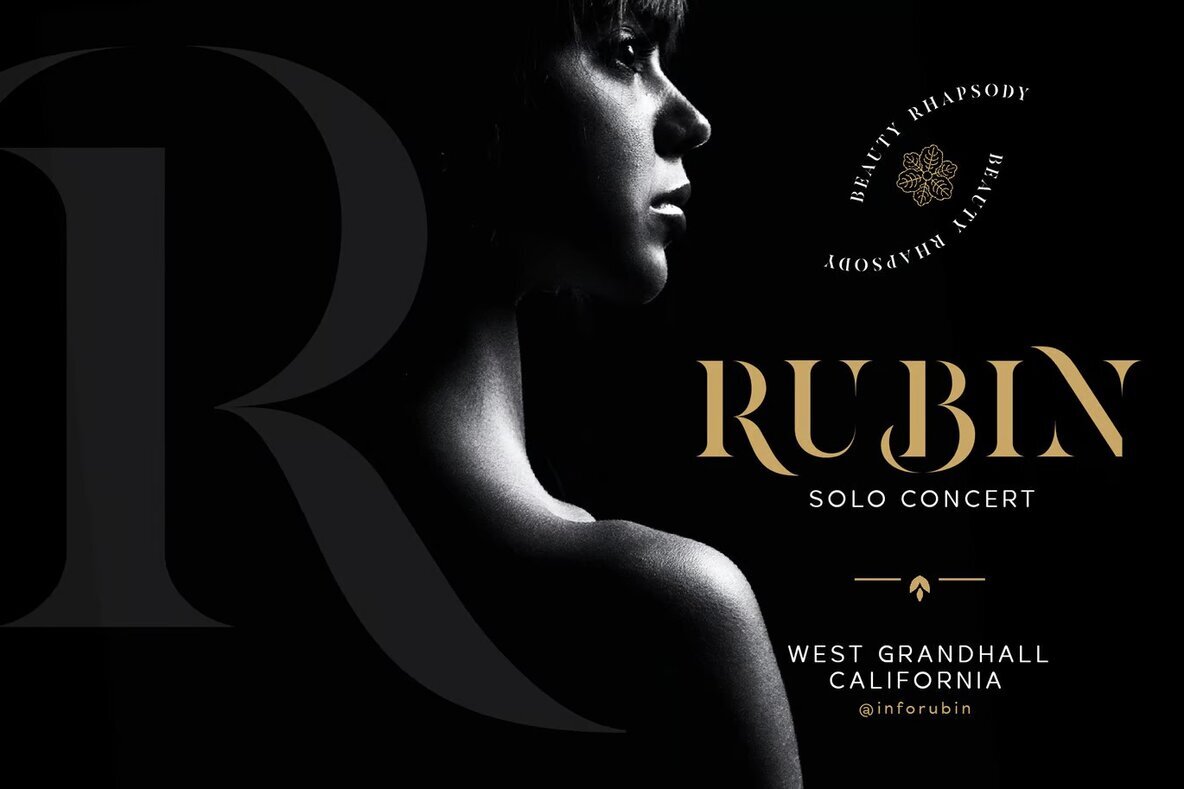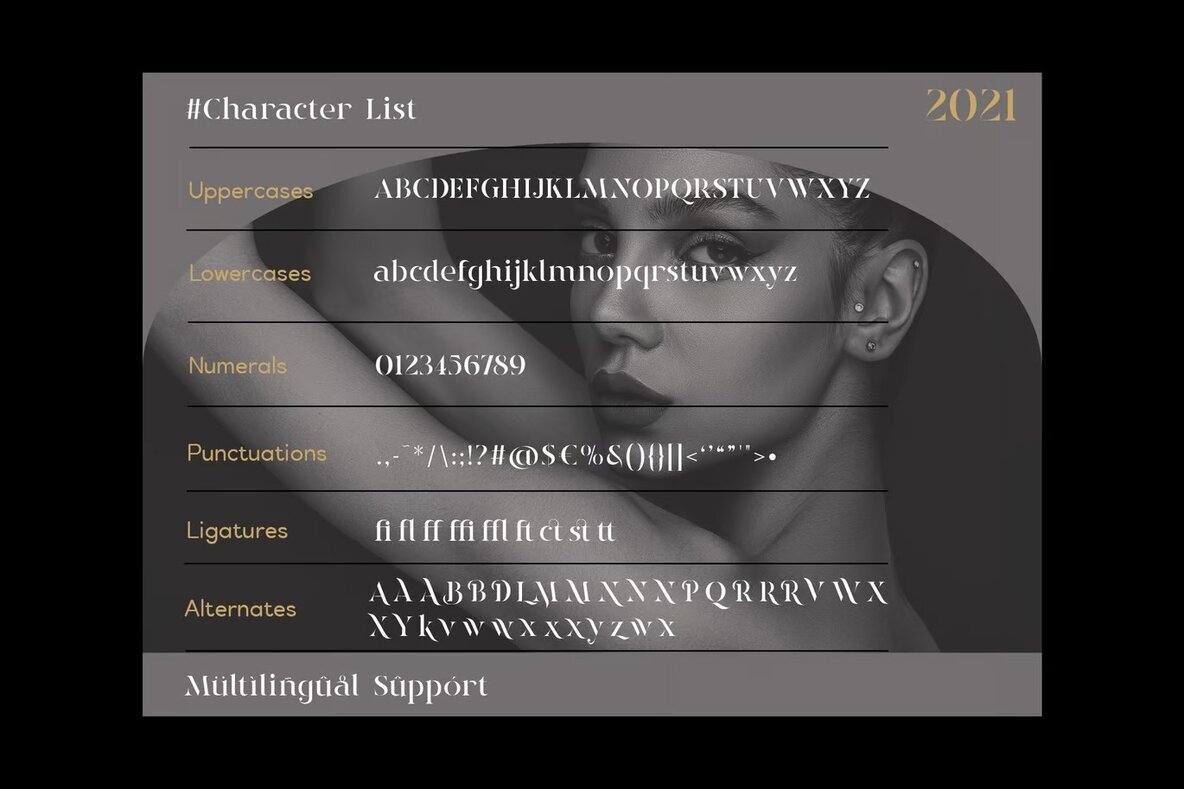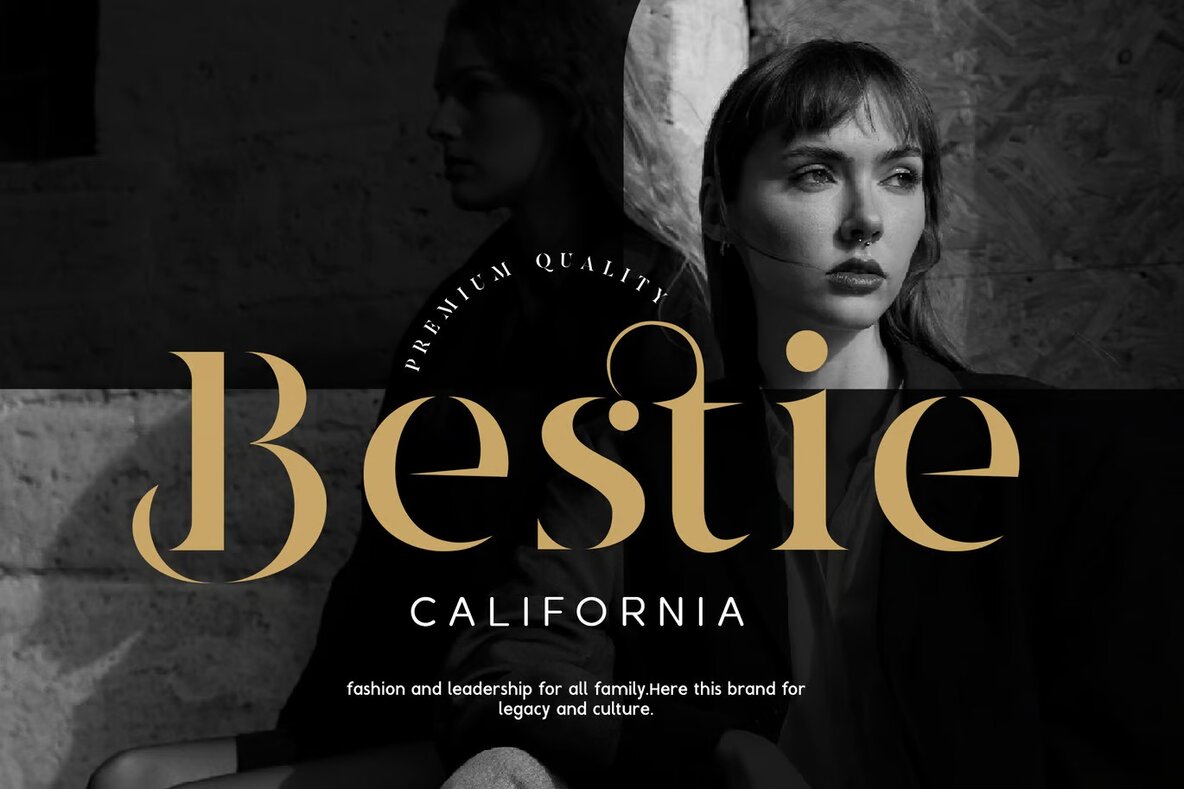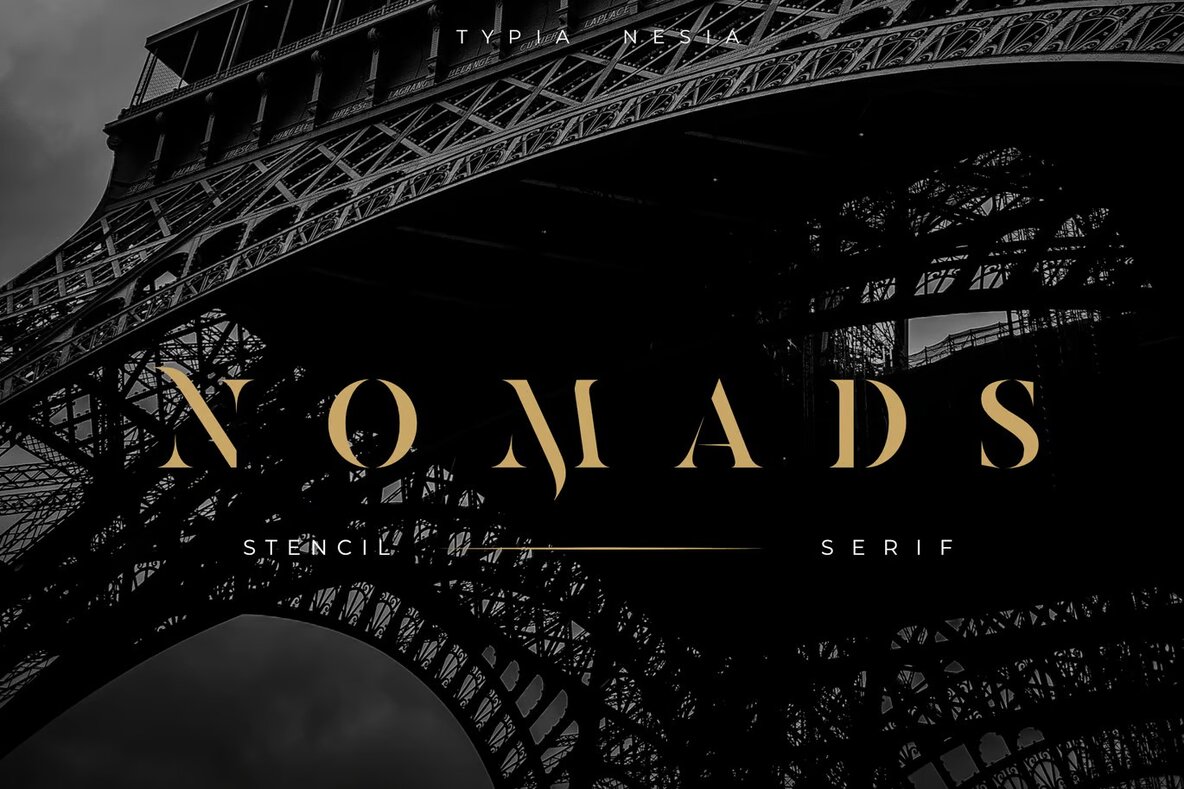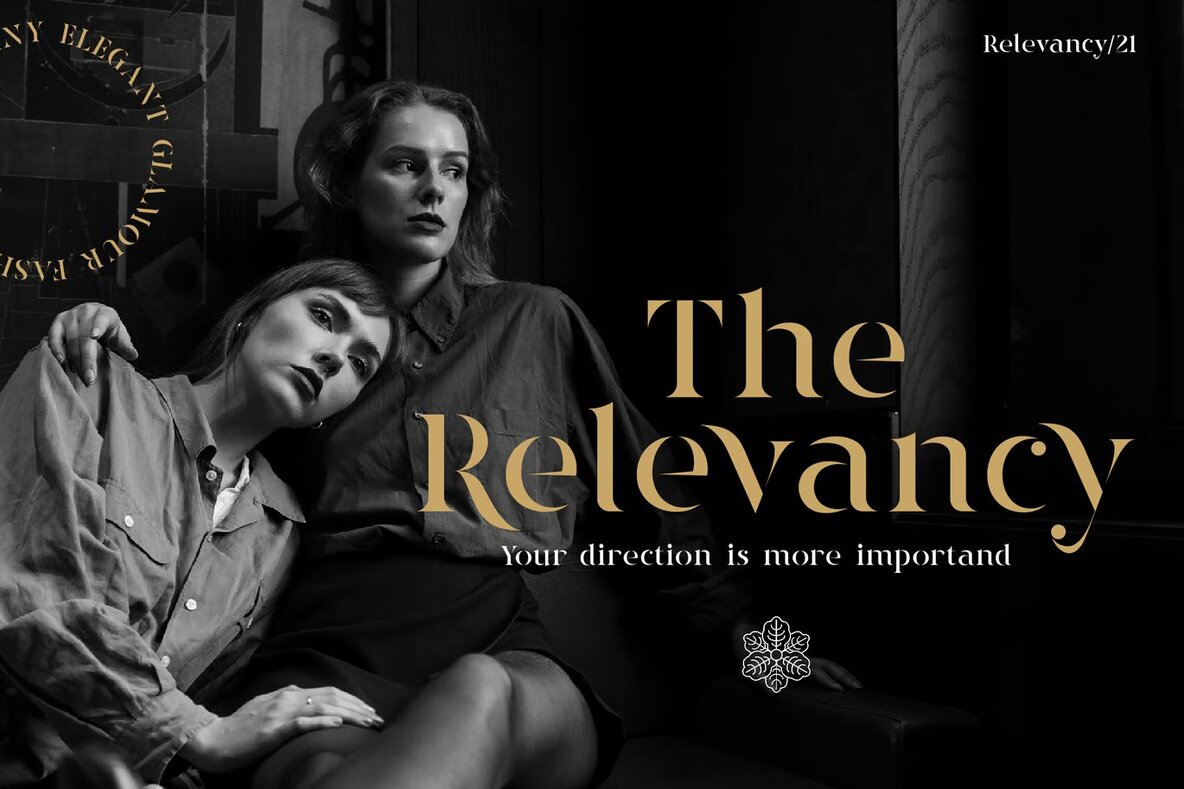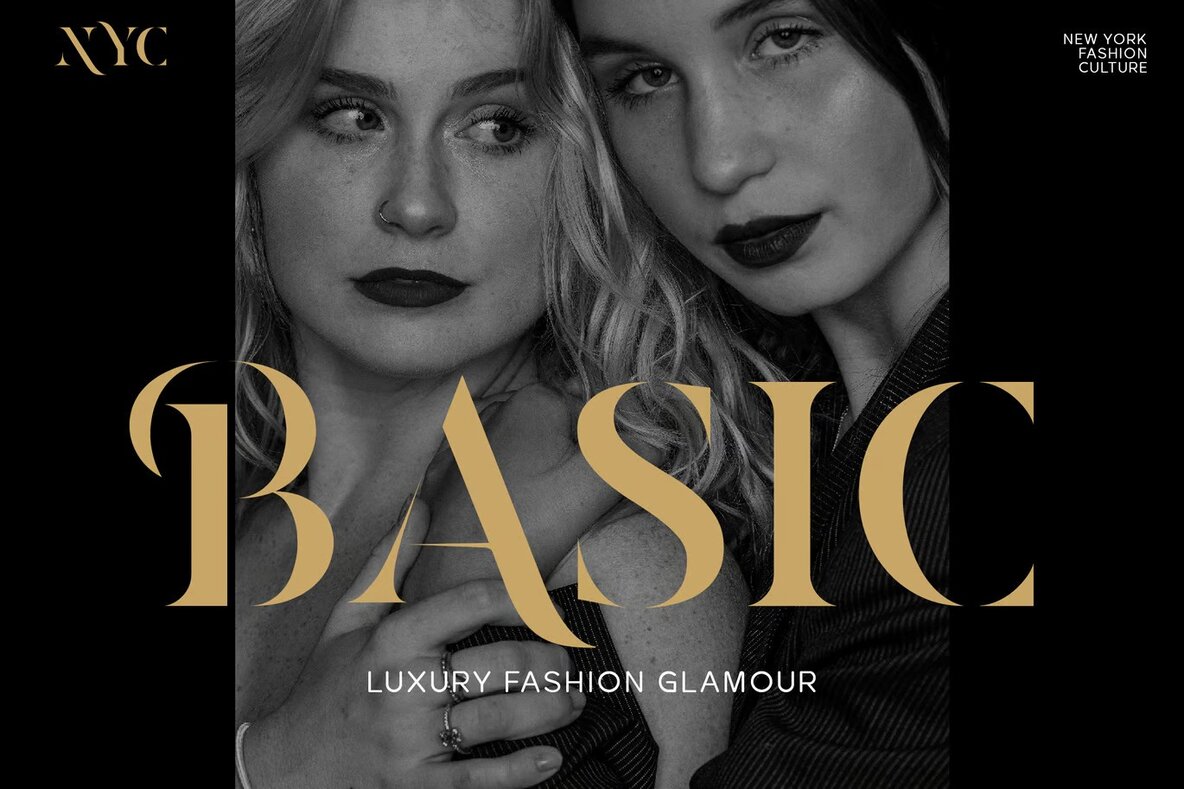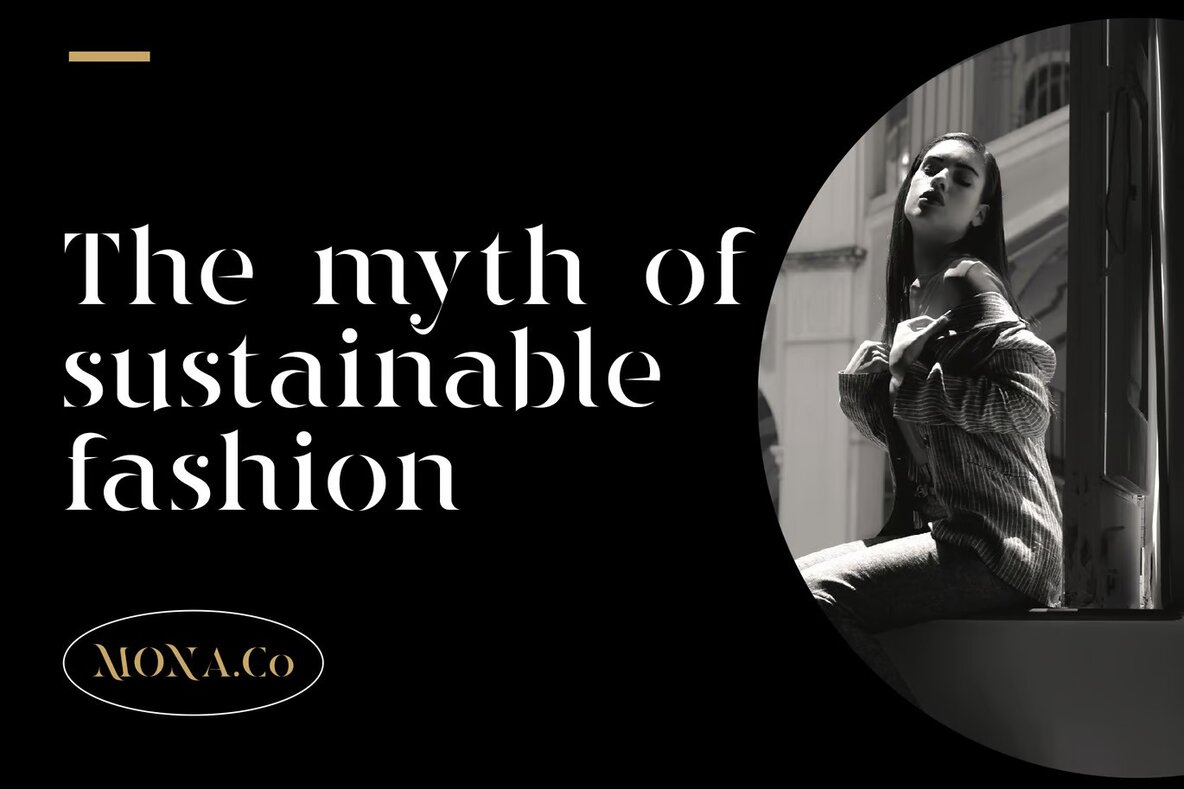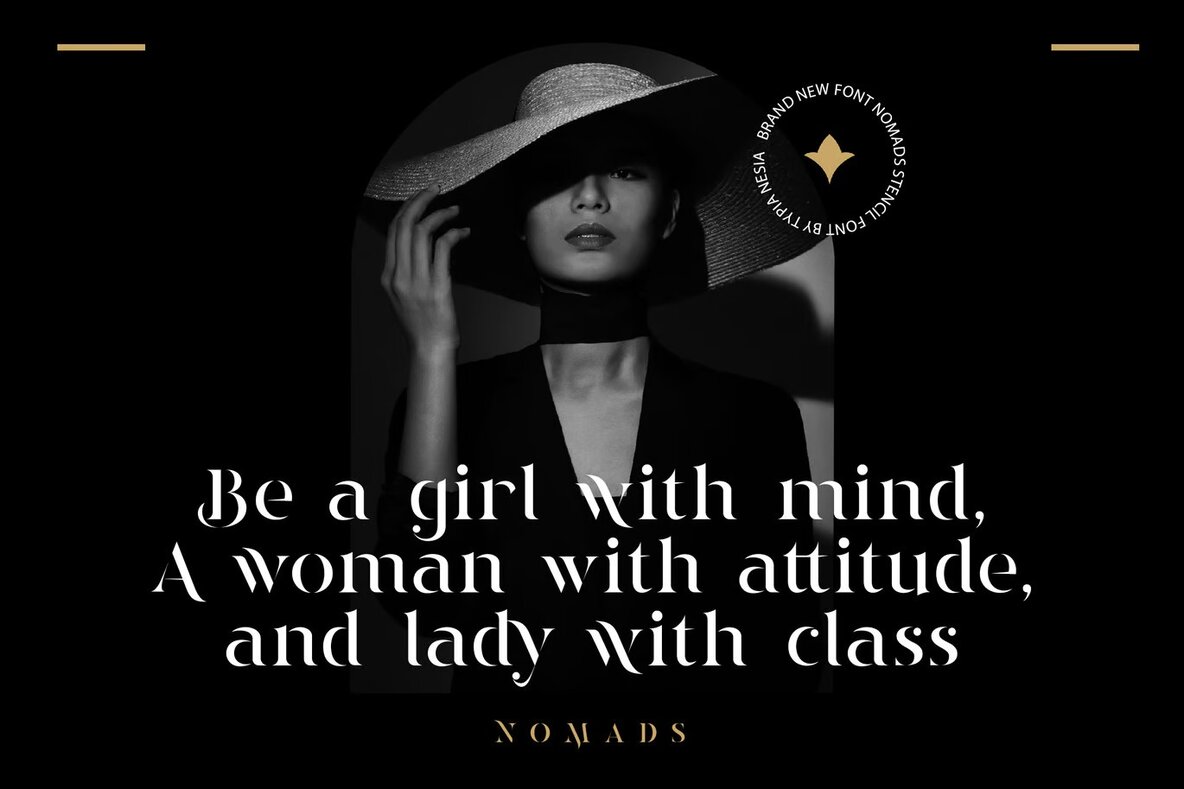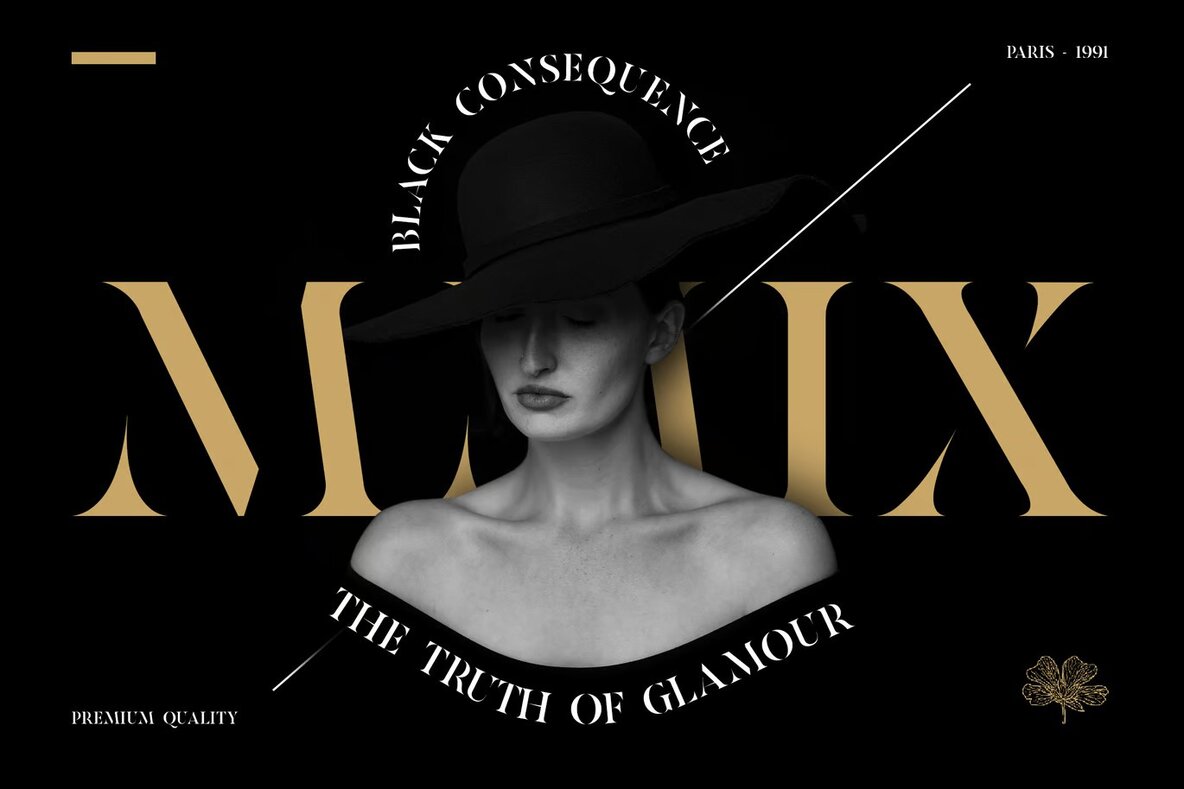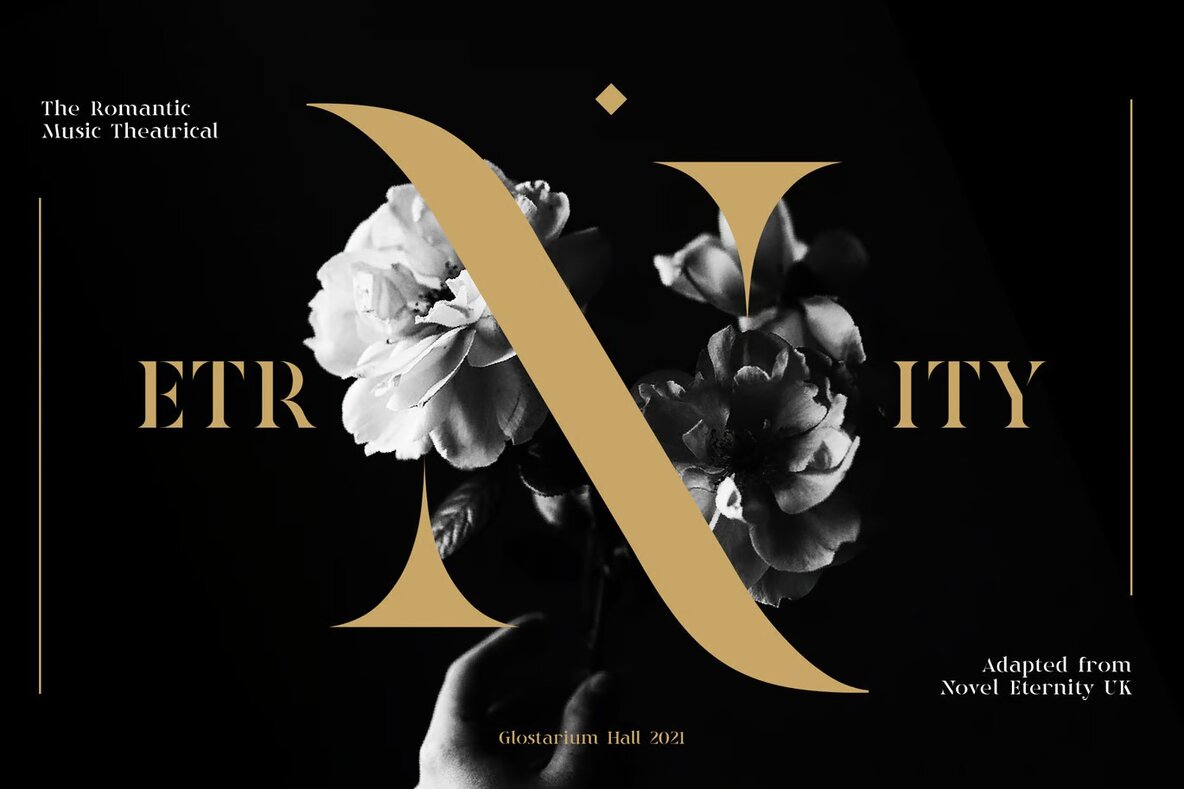
Nomads Font
Nomads Regular
Nomads is an elegant and glamorous stencil serif font, ideal for a variety of high-end design projects. Its sophisticated design is perfect for creating luxury logos and branding for fashion and cosmetic brands, art galleries, and museums. The font's refined appearance also suits classy editorial layouts and women's magazines, bringing a touch of elegance to every page. With its timeless and stylish aesthetic, Nomads is versatile enough for modern advertising designs, stationery, and boutique branding.
This font's charm extends to special event invitations, art quotes, and home decor, making it a valuable asset for numerous applications. Additionally, it fits seamlessly with card designs, book cover titles, and blog layouts, ensuring your projects exude a sense of class and sophistication. The Nomads stencil serif font captures both the modern and historical, ensuring it complements a wide range of creative endeavors.